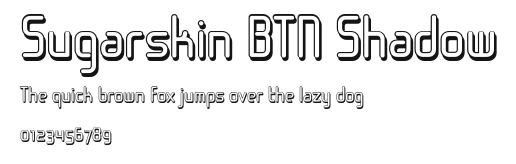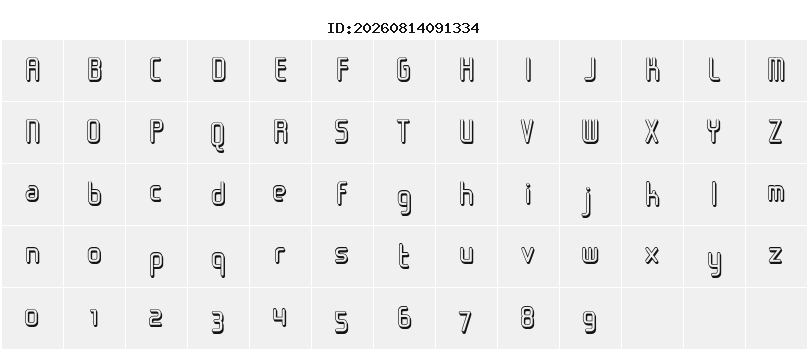
• Font Name: Sugarskin BTN Shadow
• Font ID: Sugarskin BTN Shadow
• Full Font Name: Sugarskin BTN Shadow
• PostScript Name: SugarskinBTNShadow
About Sugarskin BTN Shadow.ttf
Sugarskin BTN Shadow.ttf is a modern, elegant sans-serif font designed for ultimate readability and visual harmony. Perfect for branding, headlines, web design, and print materials.